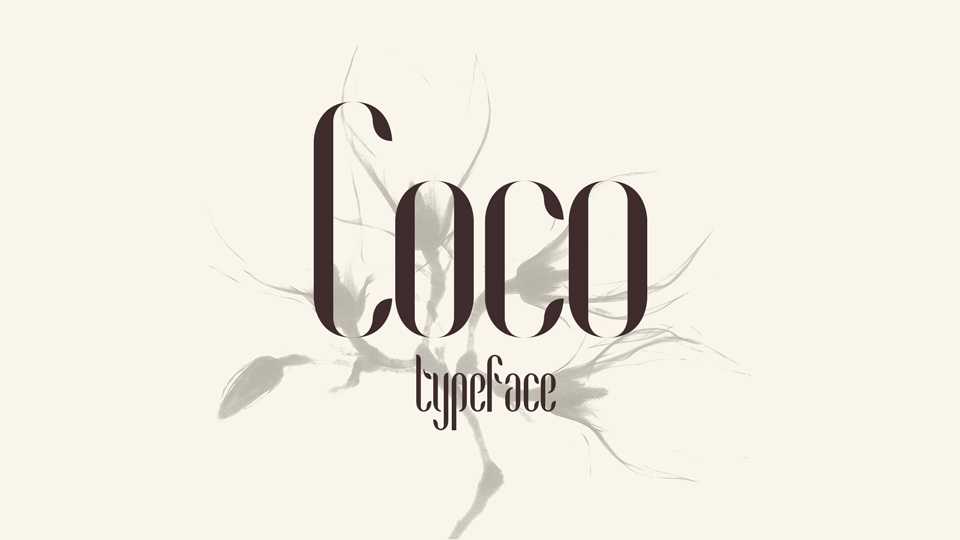
Download Coco typeface, a fancy sans serif font family in 8 fonts which can be used for several type of projects from digital to print. Coco font family is for all type lovers who would like to emphasize a fashion project.
Designer: Hendrick Rolandez